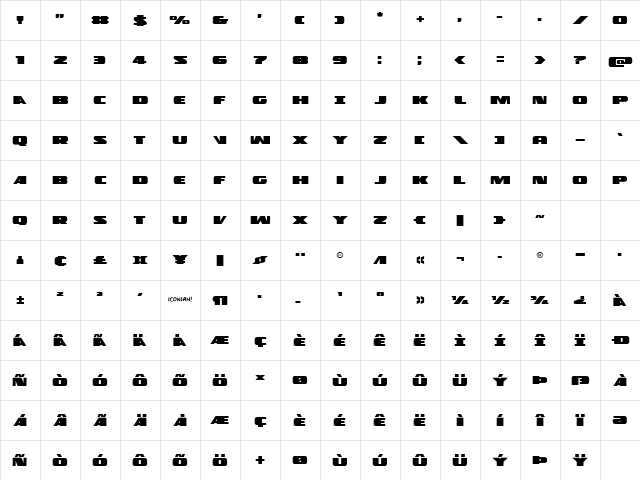
Police Cruiser Expanded Free Font
Police Cruiser Expanded Expanded
Style: Expanded
Design Context for Police Cruiser Expanded
Police Cruiser Expanded is a composed and adaptable typeface that performs quietly and consistently across a wide range of design contexts.